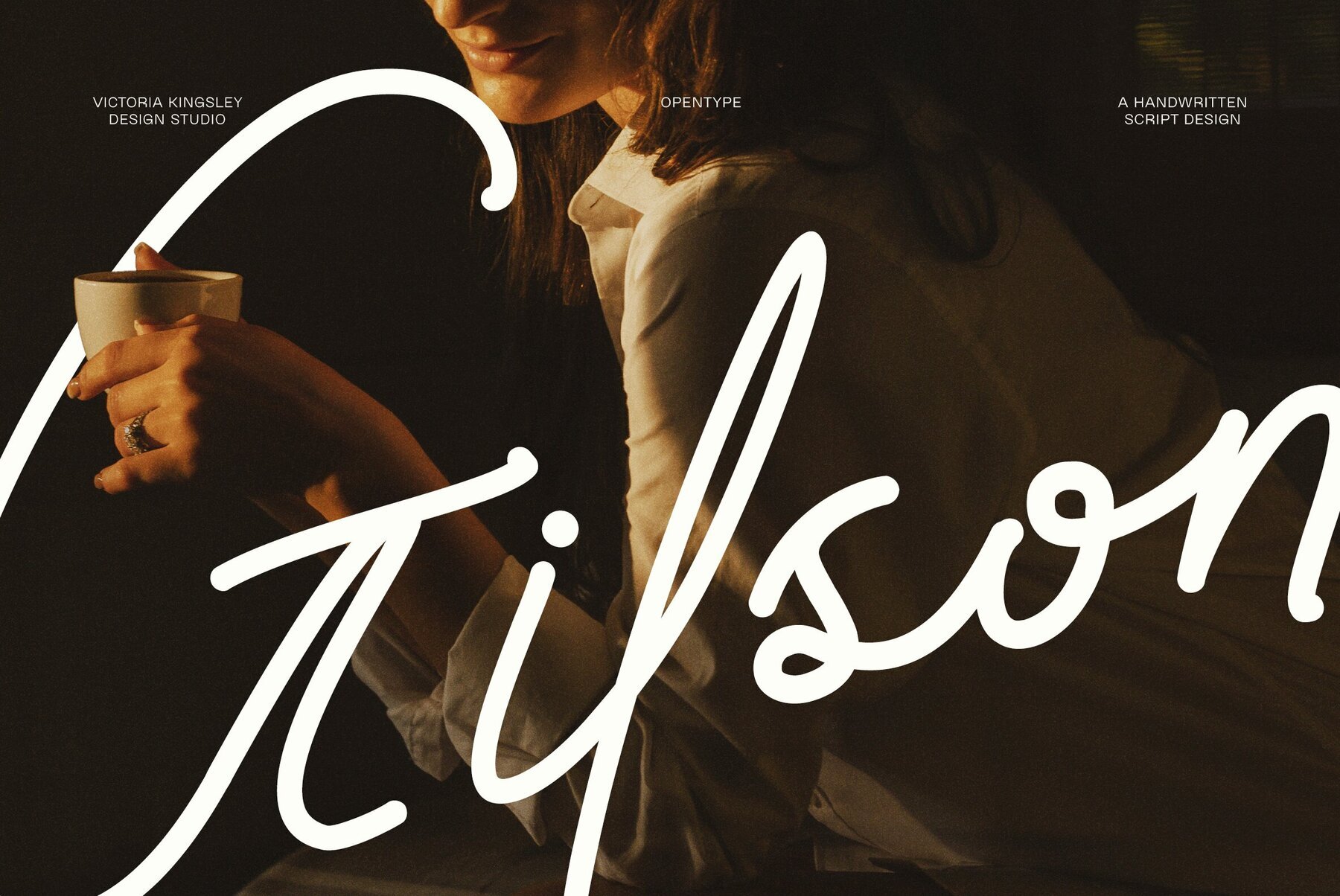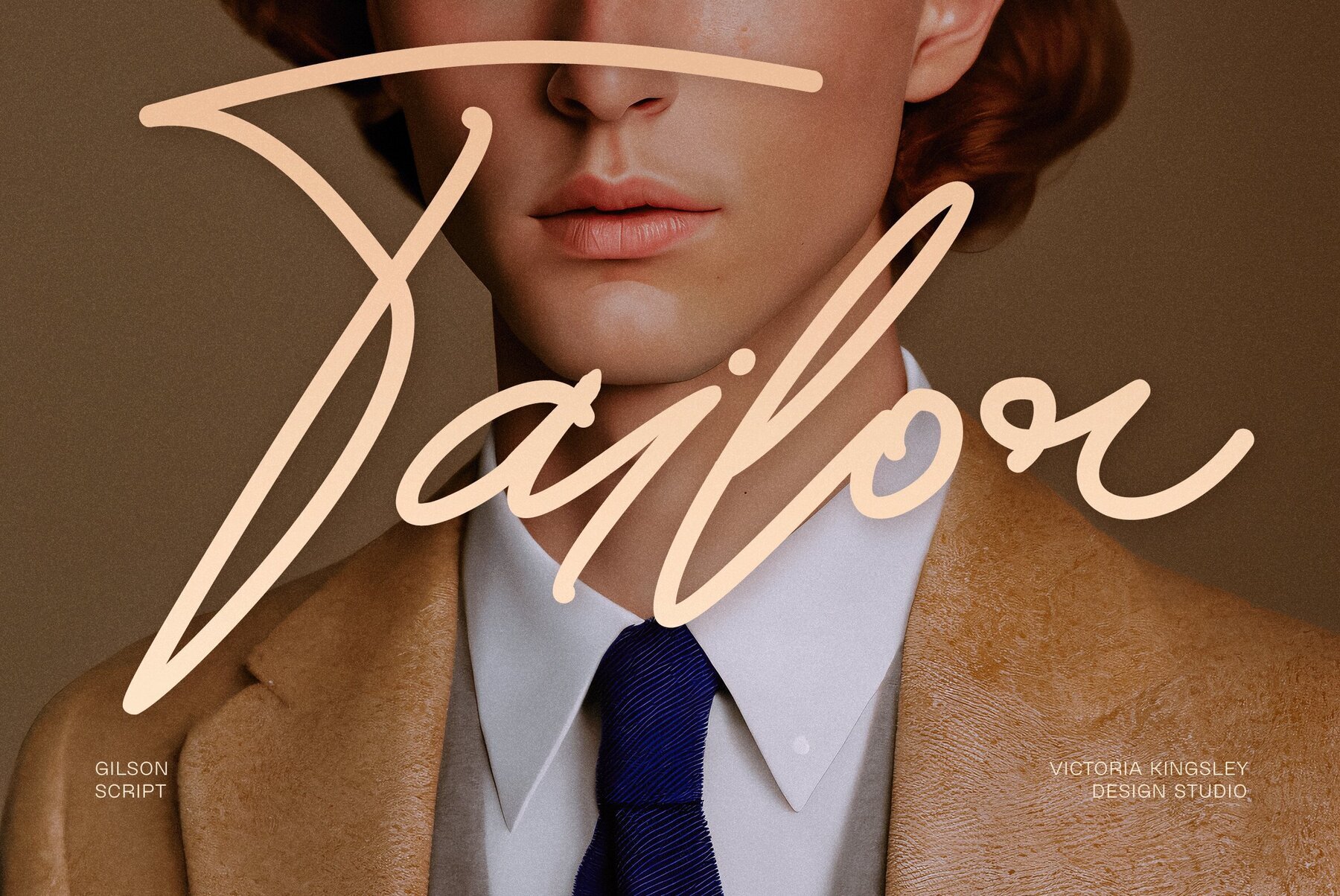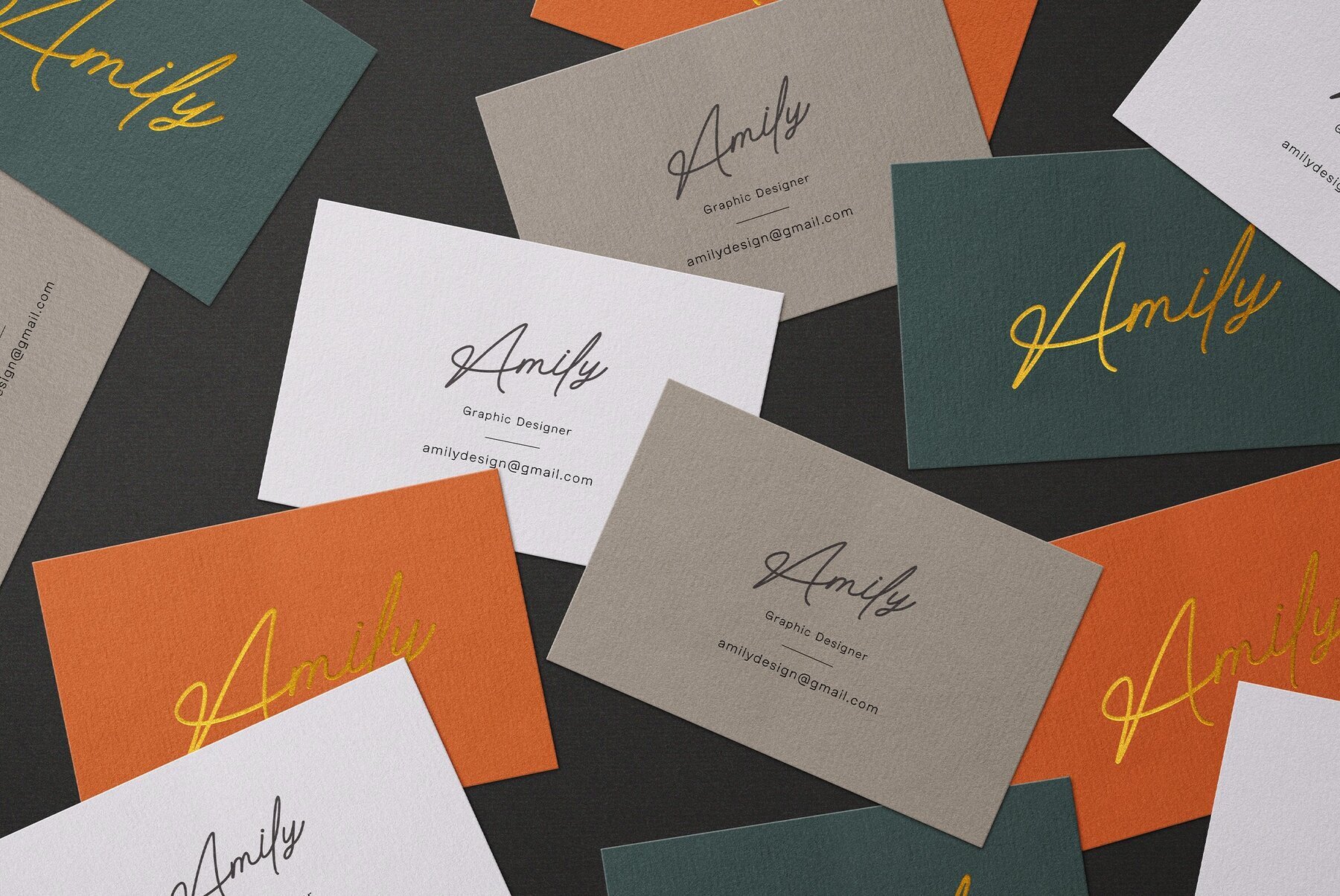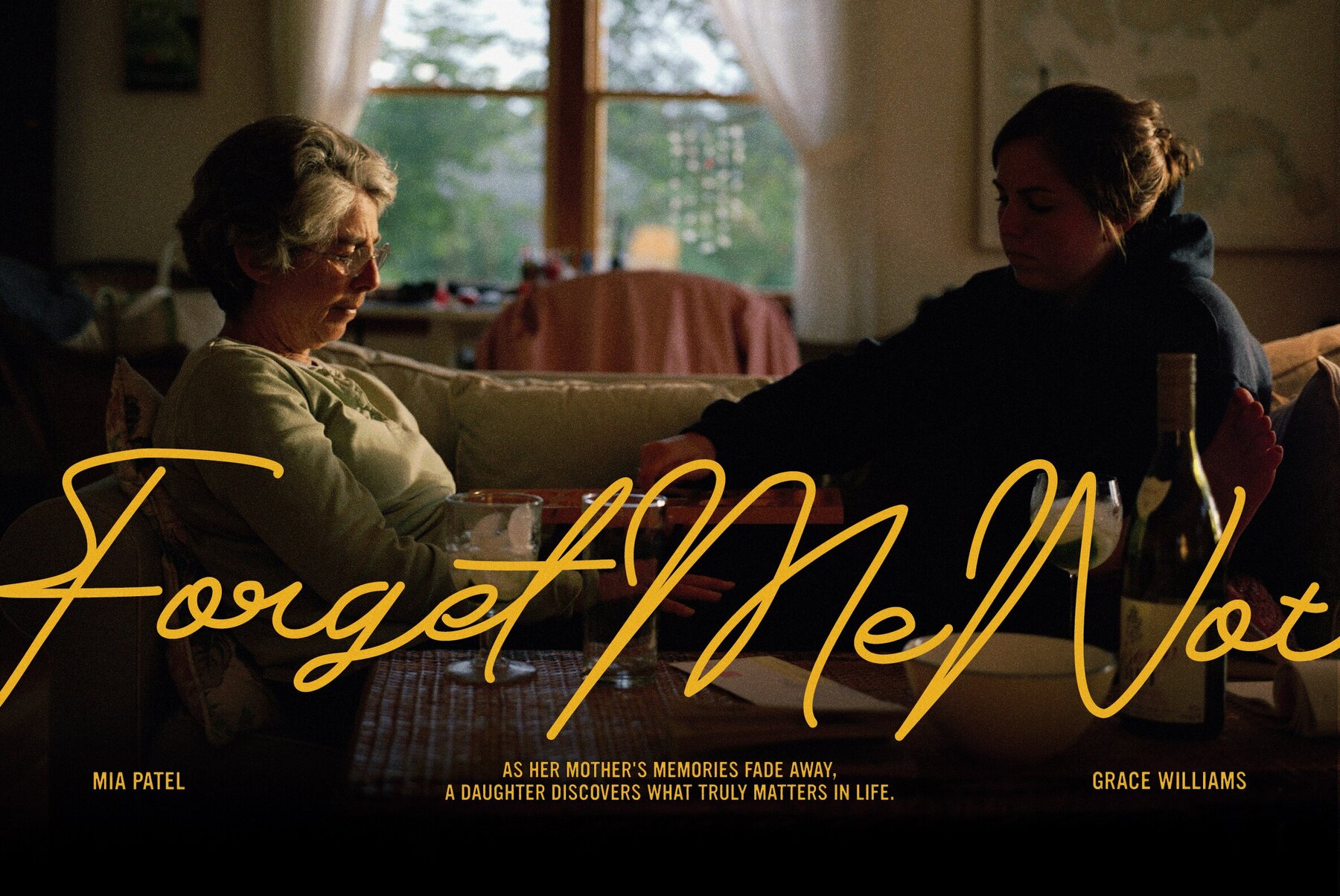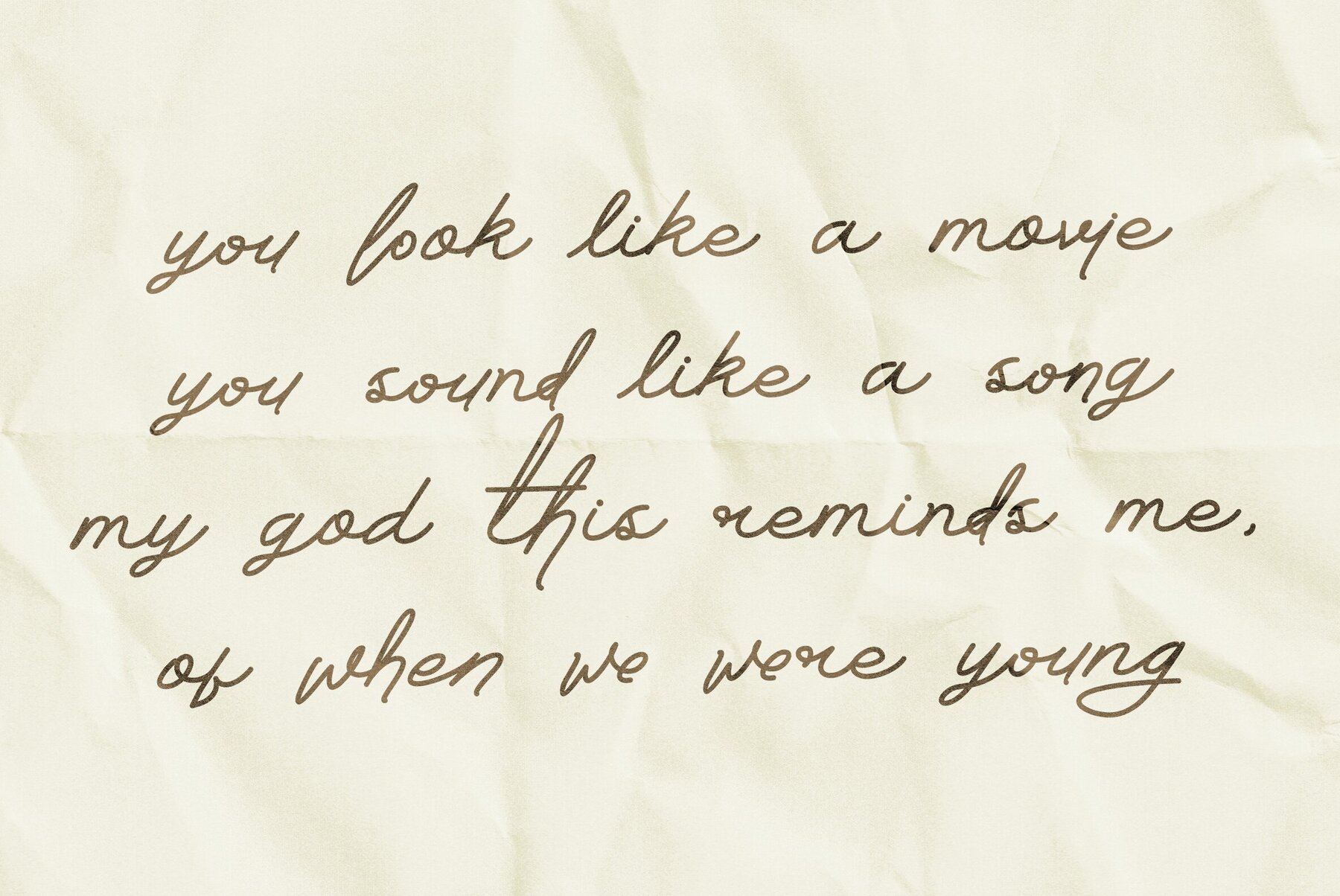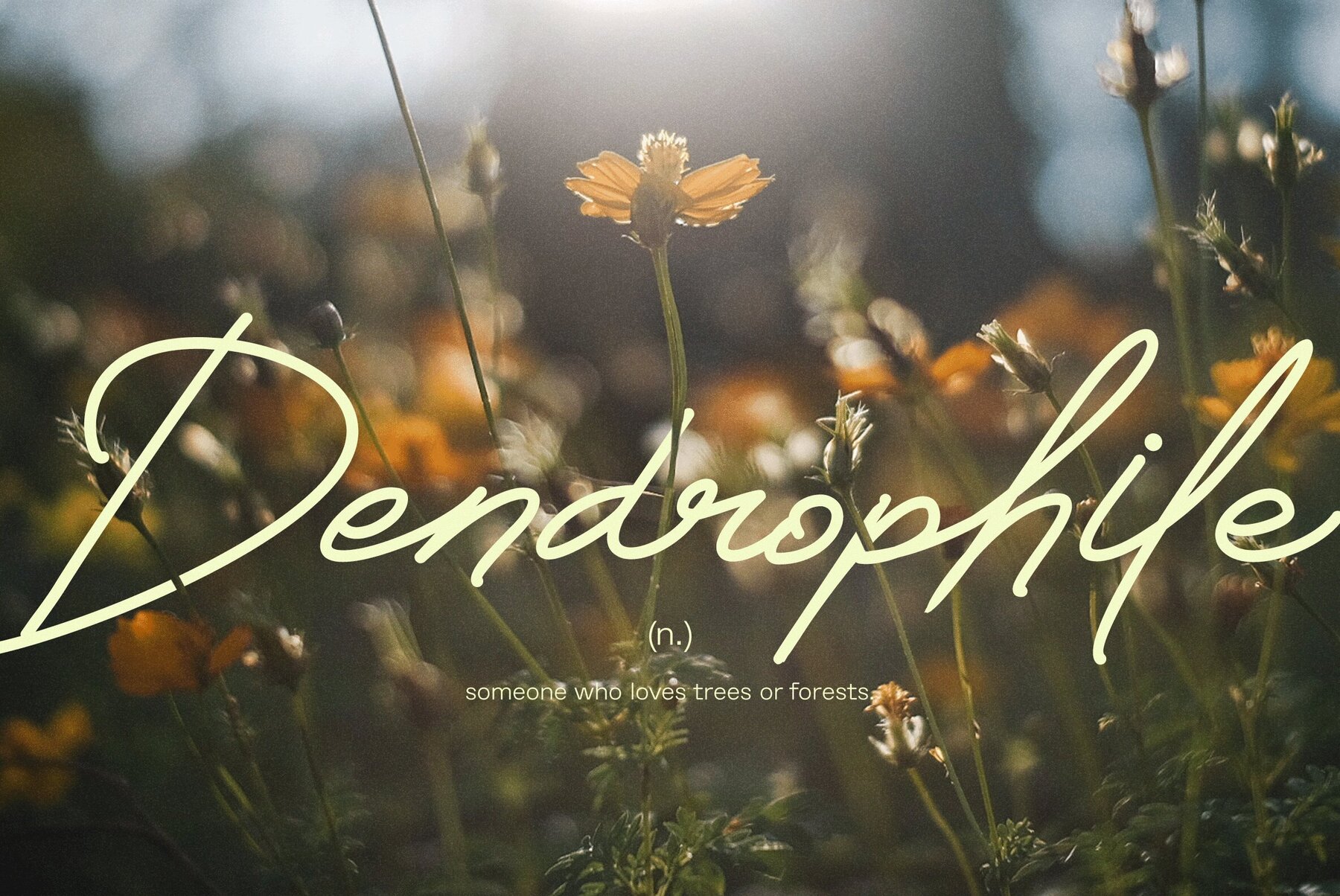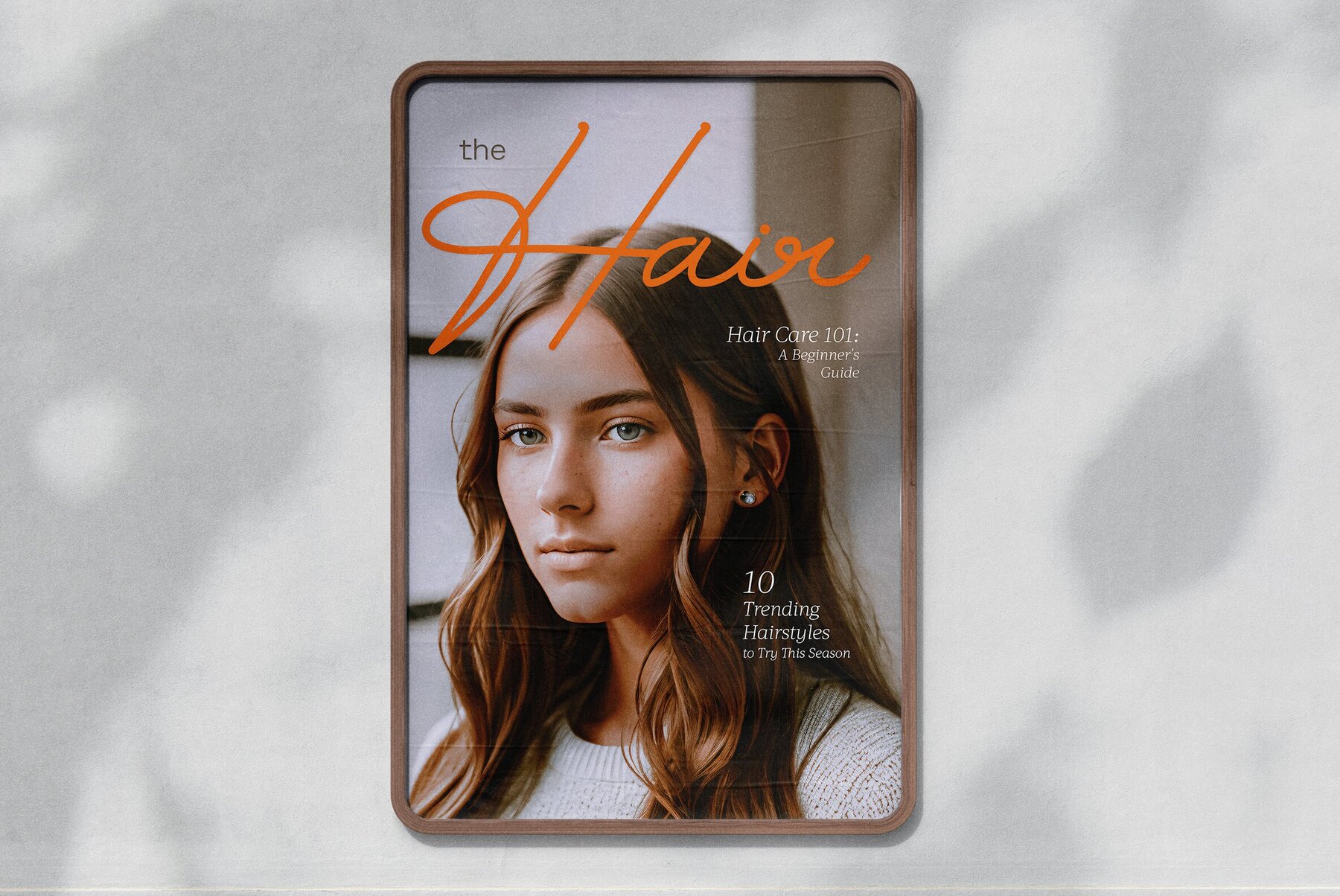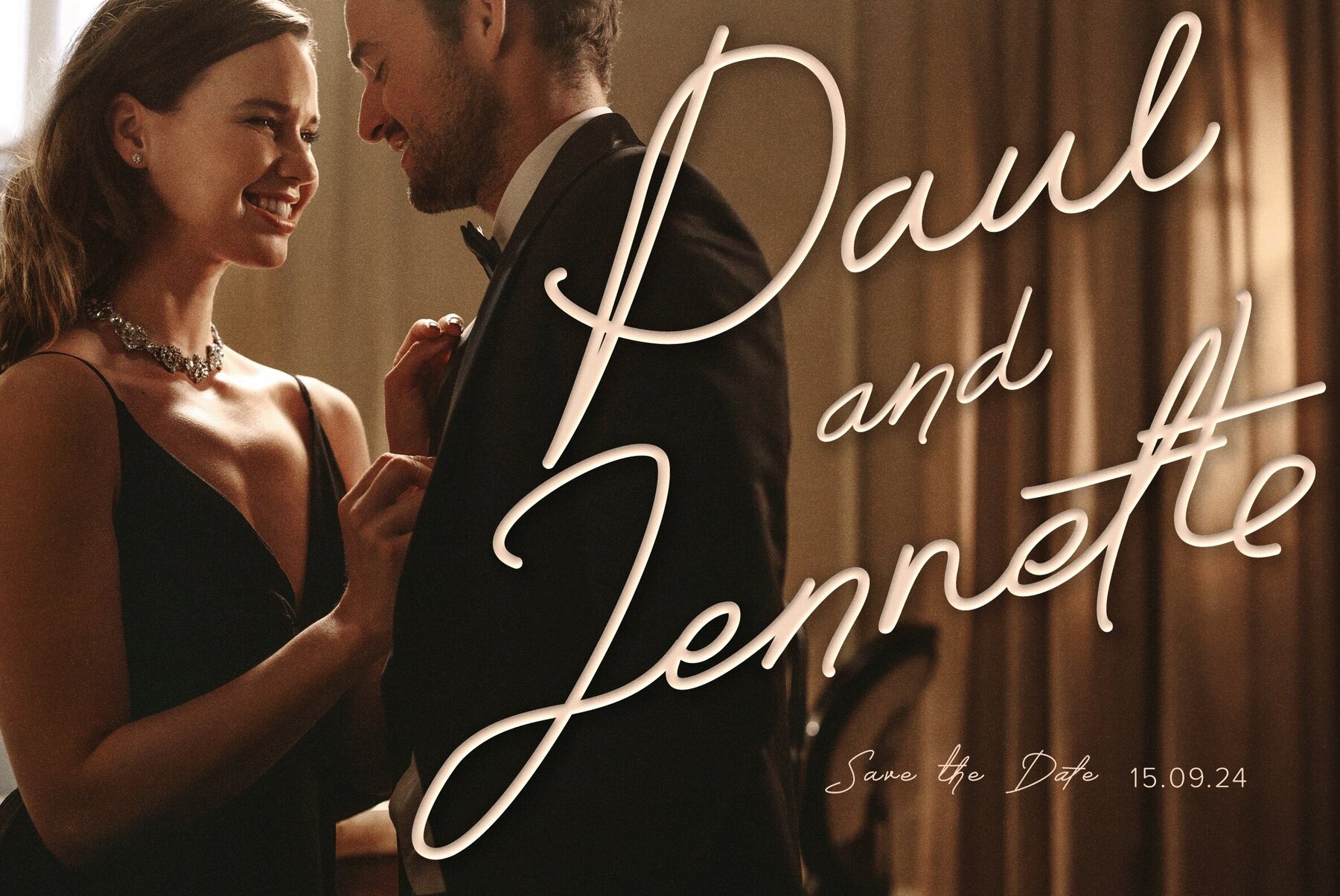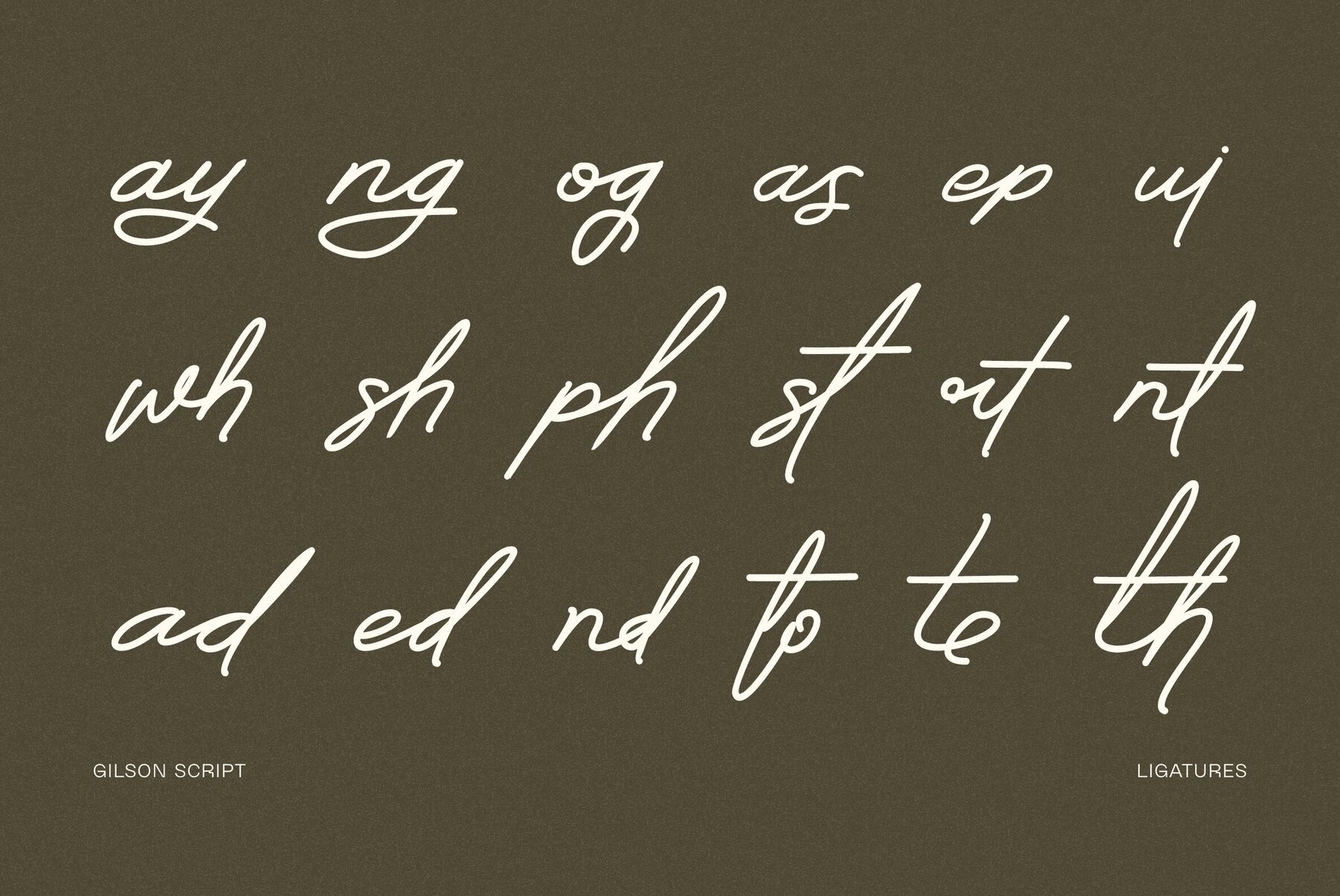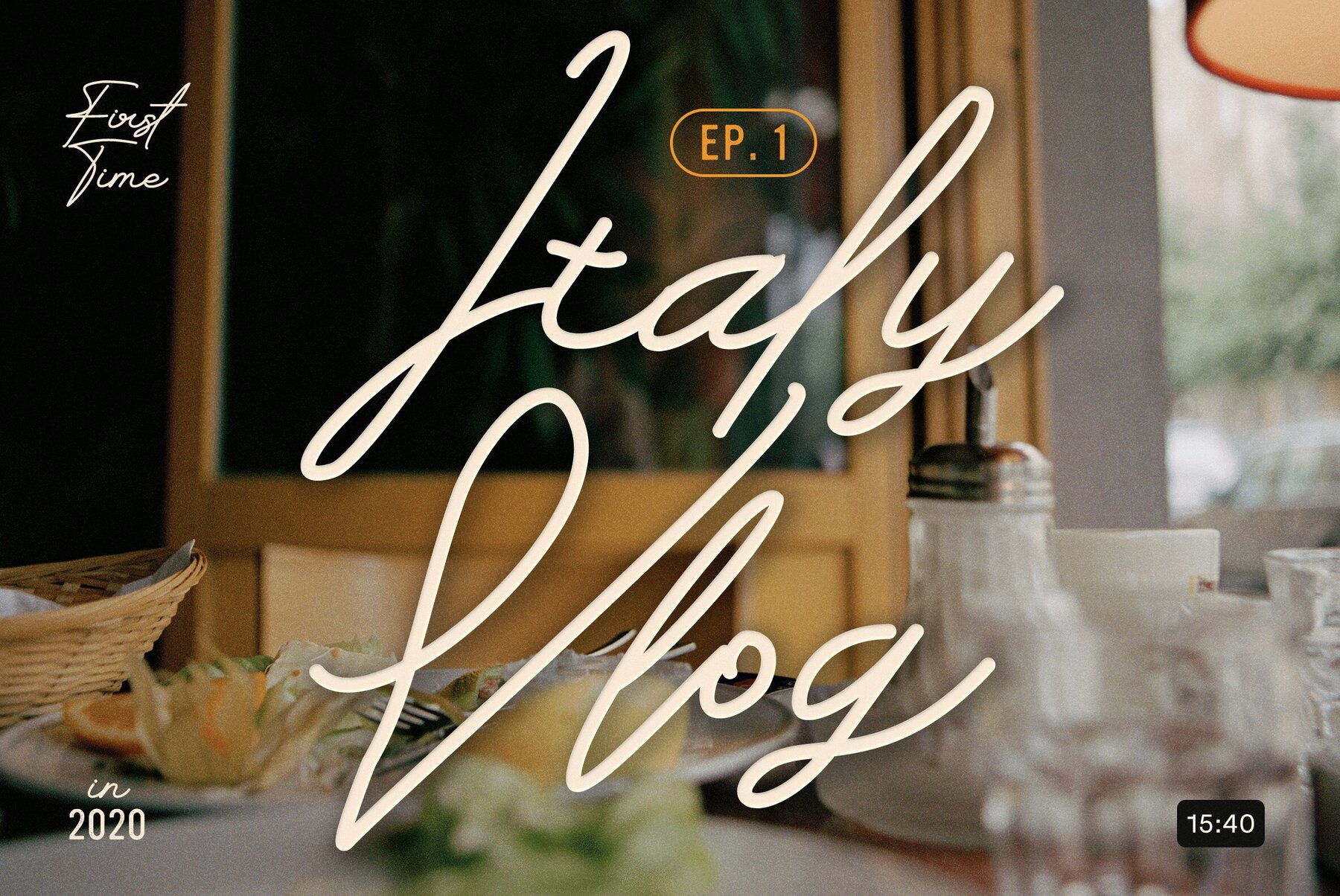
Gilson Script is a beautiful, unique font that is perfect for adding a touch of personality to your design projects. With its charming handwriting style, Gilson Script is sure to catch the eye of anyone looking for a font that is both fun and functional. This font is especially versatile, working great for invitations, movie titles, and headlines. It's also ideal for fashion brands, thanks to its delicate, feminine feel. We're thrilled to share this font with you and can't wait to see how you use it in your designs.
Ideal for Feminine Fashion Brands
In addition to its versatility, Gilson Script is also ideal for feminine fashion brands. With its delicate, feminine feel and unique ligatures, this font is a popular choice for clothing lines, fashion bloggers, and anyone looking to add a touch of elegance to their designs.
Font Fetaures
Gilson Script includes 264 glyphs, and opentype features of standard ligatures. This font is truly one-of-a-kind, with its informal handwriting style and beautiful curves. We're thrilled to share it with you and can't wait to see how you use it in your designs.